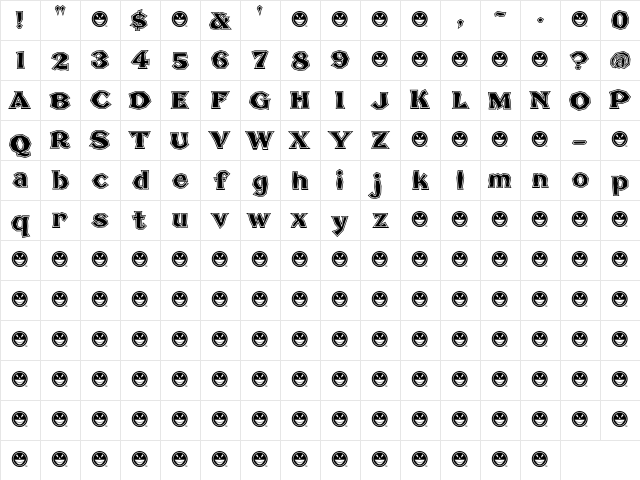
Broken Poster Tour Regular
Foundry: The Fontry
Design Context for Broken Poster Tour
Broken Poster Tour is a composed and adaptable typeface that performs quietly and consistently across a wide range of design contexts.